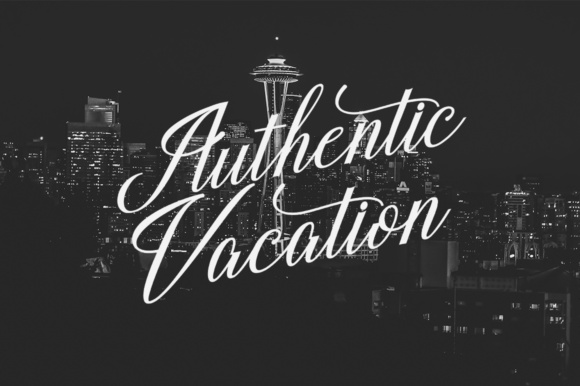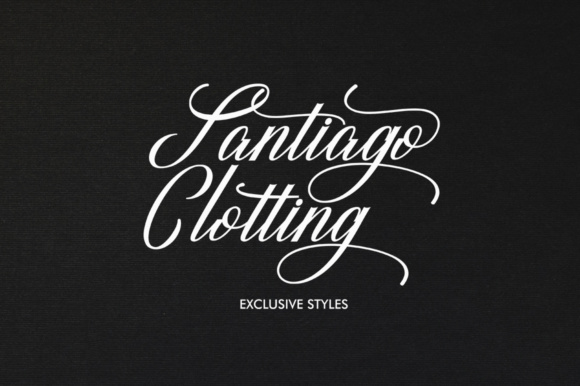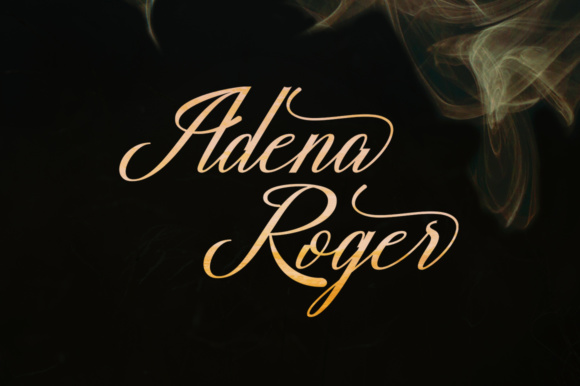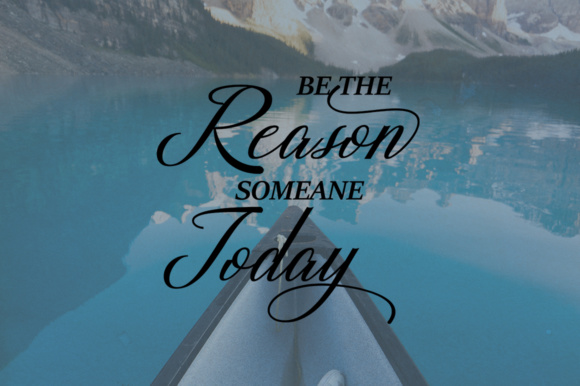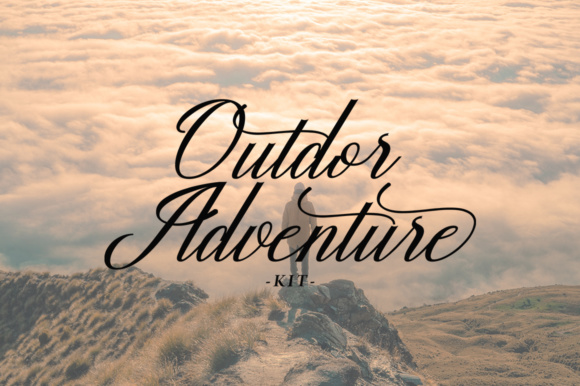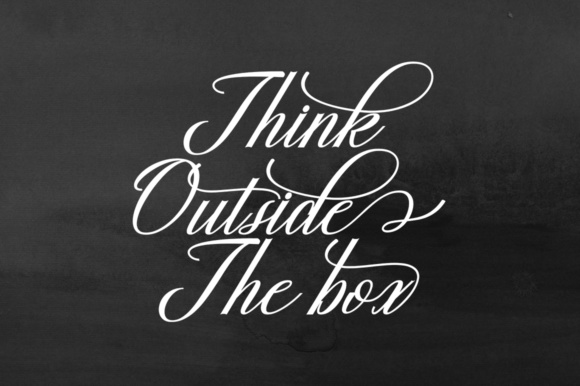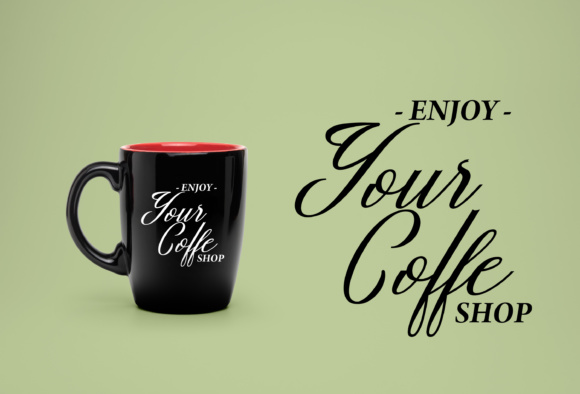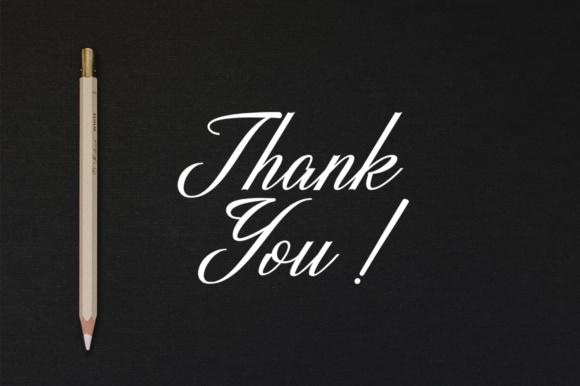
Reghinatha Script Font
About Reghinatha Script Font
The Reghinatha is a new, modern script font with an irregular baseline. It has a trendy and feminine style which looks lovely on wedding invitations, thank you cards, quotes, greeting cards, logos, business cards and more.